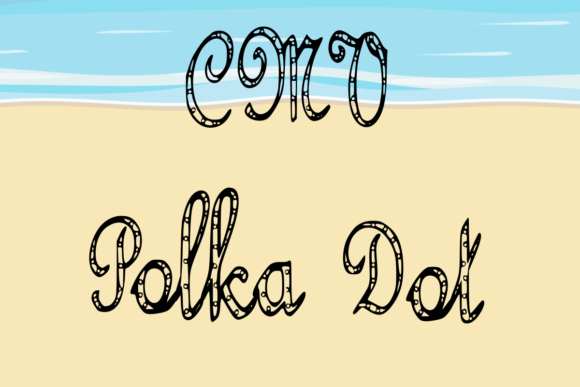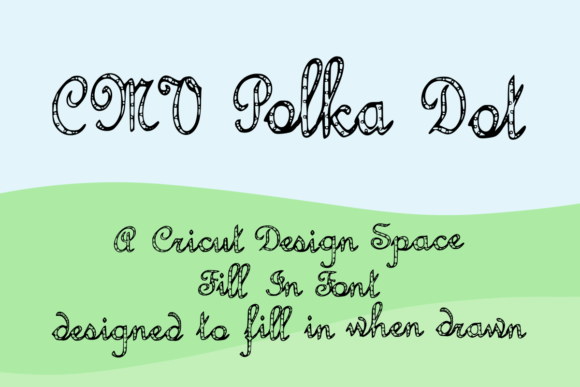
HomeScript FontsCMV Polka Dot Font Script Fonts CMV Polka Dot Font FacebookXPinterestWhatsApp CMV Polka Dot Font Poster 2 About CMV Polka Dot Font CMV Polka Dot is a fun and creative outlined script with sweet polka dots. DOWNLOAD ON CREATIVE FABRICAThis font is sold and delivered by Creative Fabrica. Font Canyon may earn a commission if you buy through this link. People also explored Holly Jolly Font Helmyani Font Handmade Wonderful Duo Font Aluna French Font Borsman Font Vanargand Font Vastron Font Red Tape Candy Cane Comic Font 403 0 TagsCMV Polka Dot Font Previous articleLove the Trees FontNext articleCMV Pinstripe Font LEAVE A REPLY Cancel reply Comment: Please enter your comment! Name:* Please enter your name here Email:* You have entered an incorrect email address! Please enter your email address here Website: Save my name, email, and website in this browser for the next time I comment. Personal Use Free Stronger Personal Use Free Read more about this font Jilliant Personal Use Free Read more about this font Angola Beach Personal Use Free Read more about this font Braindly Personal Use Free Read more about this font BLOG 5 Fonts That Will Dominate Design Trends in 2026 5 Fonts for 2026 That Will Dominate Design Trends Typography plays a critical role in visual communication, and as we look ahead to 2026, it’s... How to Cut Any Font on Cricut: Convert a Font to SVG (Free) How to Install and Use Fonts on Windows, macOS, and Web Projects To increase your work productivity, choose the most readable fonts.